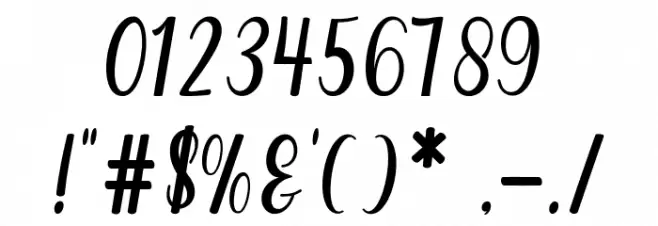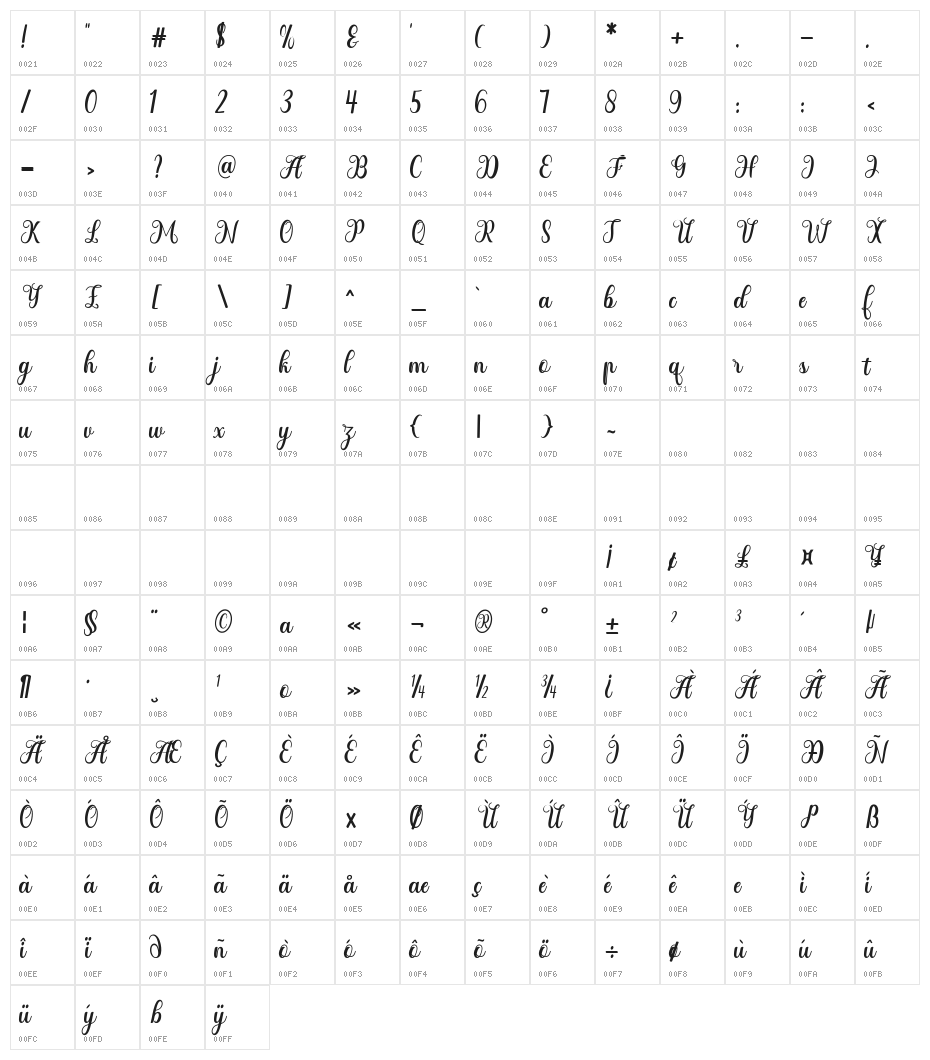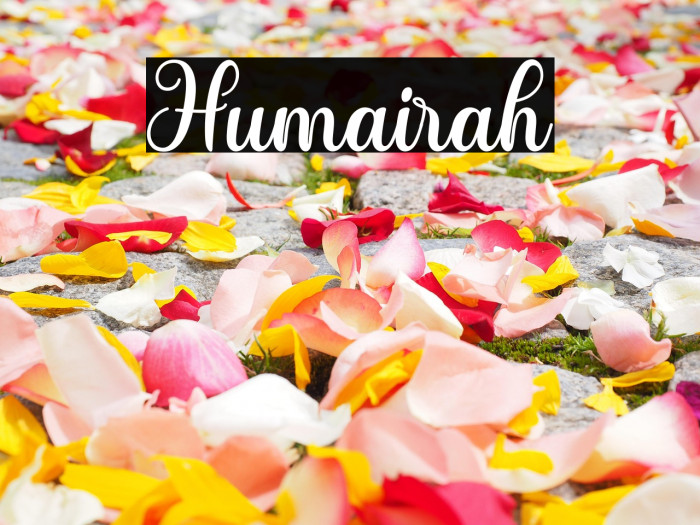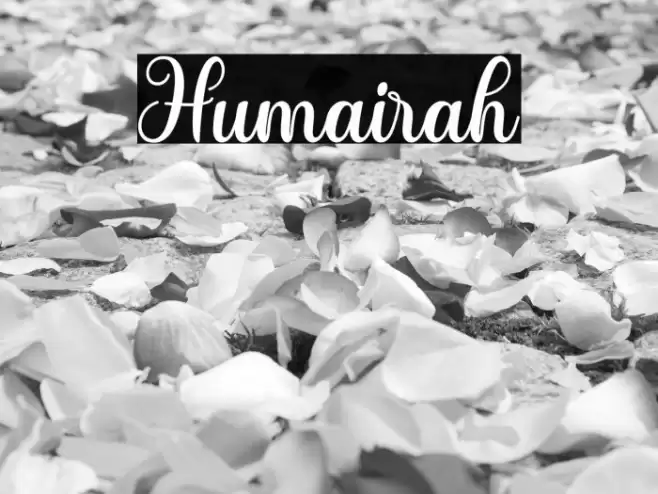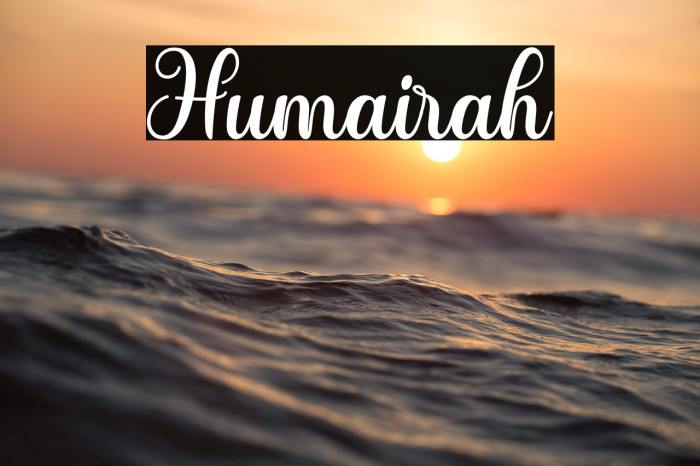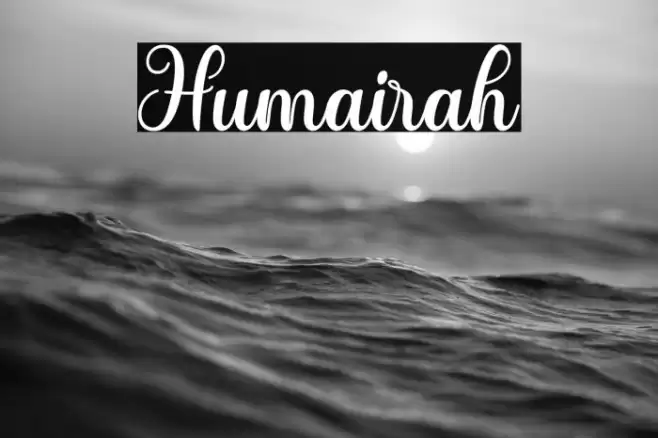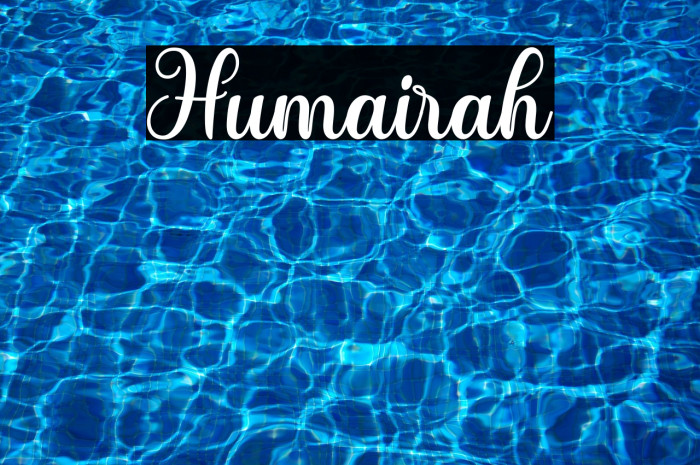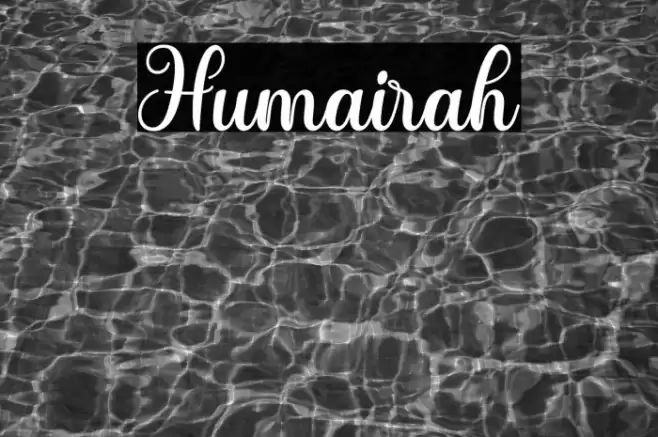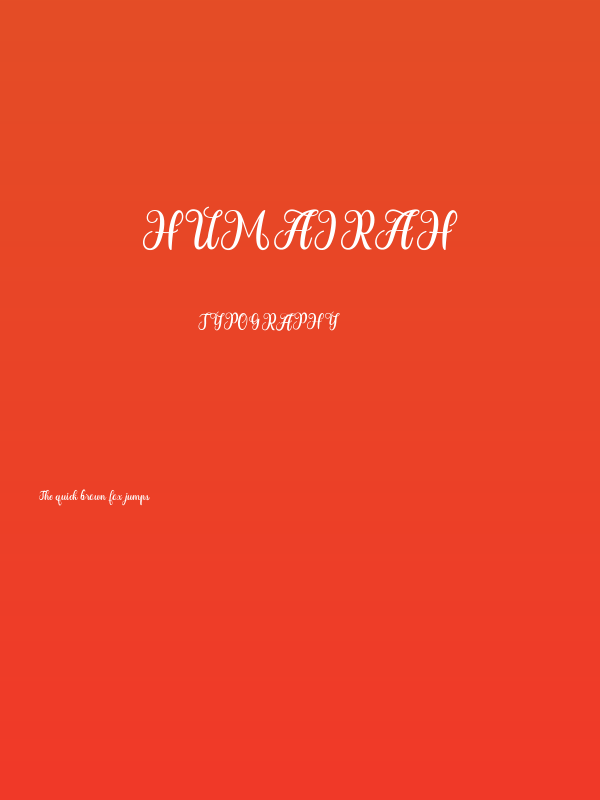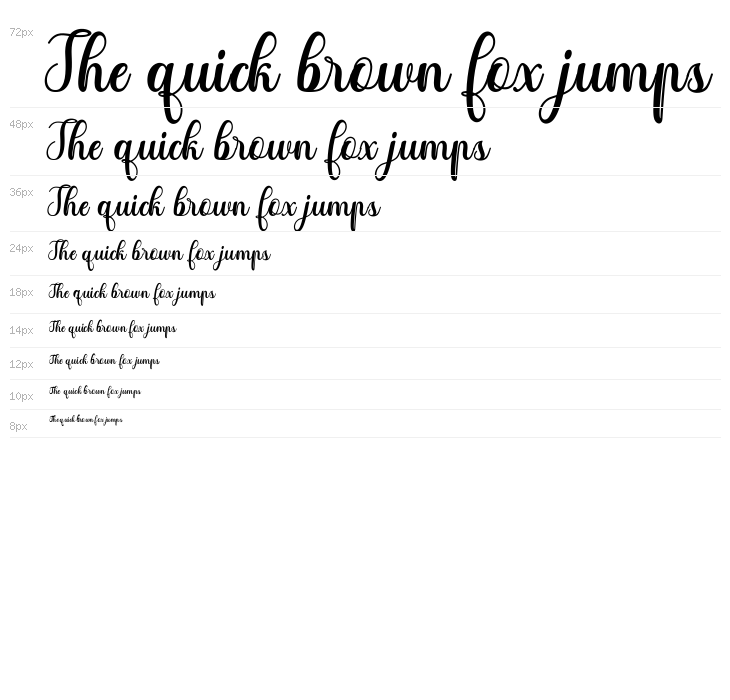
Humairah Font
Humairah Description
This elegant script font features flowing, interconnected letters that exude a sense of sophistication and charm. The uppercase letters are ornate, with graceful loops and swirls, while the lowercase letters maintain a more subdued yet stylish appearance. The numerals are consistent with the overall aesthetic, offering a harmonious blend of curves and lines. Special characters are thoughtfully designed to complement the font's overall style, making it versatile for various applications. The font's fluidity and decorative elements make it ideal for projects that require a touch of elegance and personality.
| Proposed Projects | Wedding invitations, greeting cards, branding materials, and elegant packaging designs. |